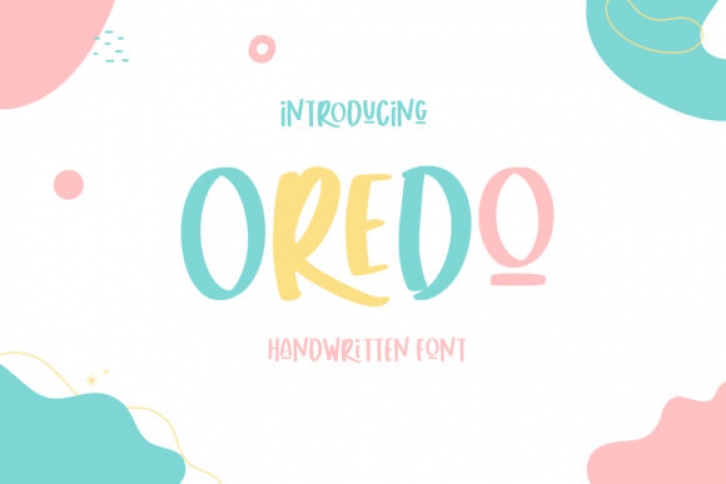
Oredo is a joyful and cool handwritten font. This font is perfect for children themed designs, especially when combined with bright colors. Oredo has the potential to bring each of your creative ideas to the highest level!